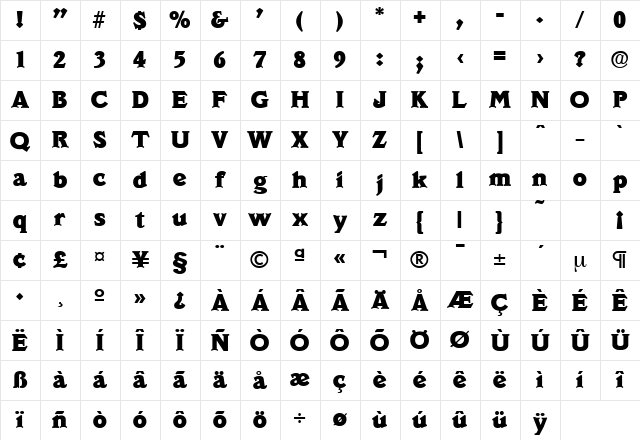
Veracruz-Serial-Heavy Regular
Veracruz-Serial-Heavy Family
Design Context for Veracruz-Serial-Heavy
Veracruz-Serial-Heavy is a composed and adaptable typeface that performs quietly and consistently across a wide range of design contexts.
Pro Tip: Use Veracruz-Serial-Heavy in both headline and body roles to test its range before committing to a single application.